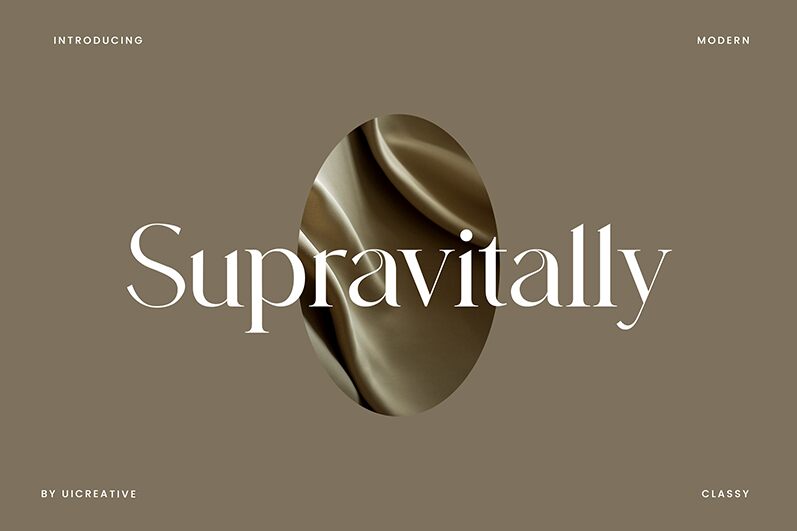
Supravitally
Supravitally, a captivating serif font crafted by UI Creative, commands attention with its bold yet elegant aesthetic. Featuring a harmonious blend of sharp edges and gentle curves, this typeface exudes a sense of refined sophistication. The deliberate interplay of thick and thin strokes lends depth and dimension, evoking a timeless and sophisticated ambiance. Supravitally's distinctive character shines through in its ornate flourishes and subtle ligatures, delivering a visually captivating experience that seamlessly blends tradition and modernity.
Supravitally's versatility makes it a compelling choice for a wide range of design applications. Whether adorning the pages of high-end magazines, gracing the headers of luxury websites, or elevating the branding of prestigious institutions, this font's refined elegance effortlessly commands attention. Its versatility extends to editorial layouts, book covers, and artistic projects, where its unique personality can elevate the overall aesthetic and communicate a sense of refined sophistication.